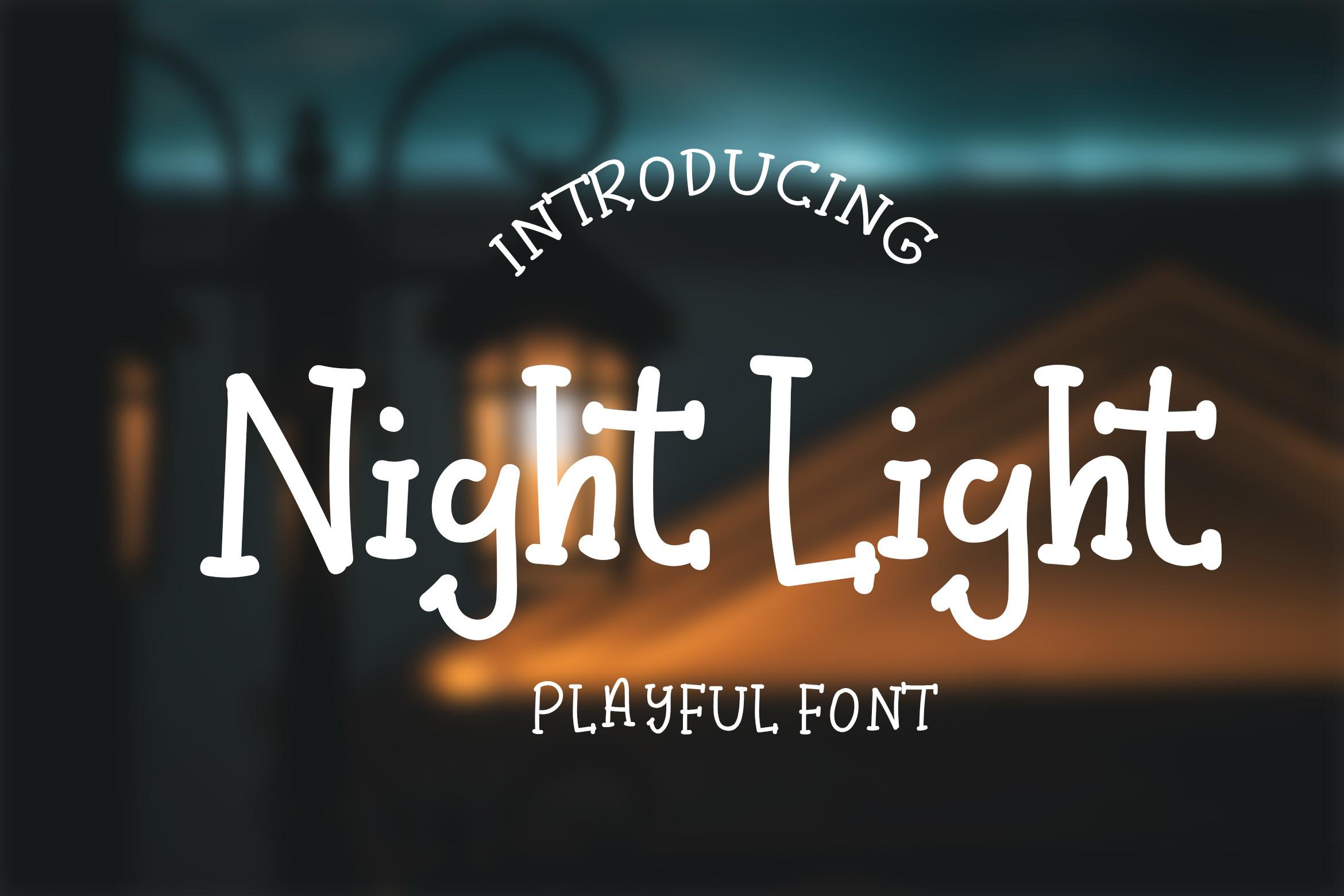
The Night Light font is a playful and unique serif font. With cute and cheerful characters, this font is the best choice for children’s books, notes, birthday invitations, posters, and many other creative ideas!